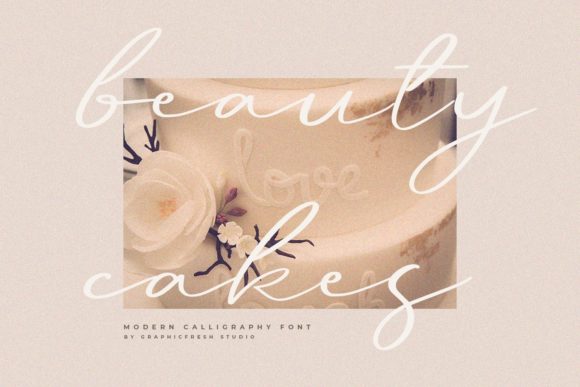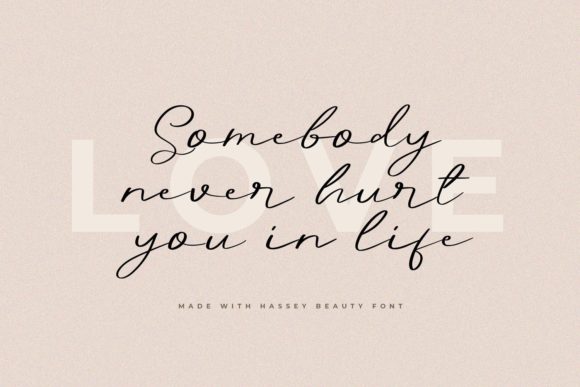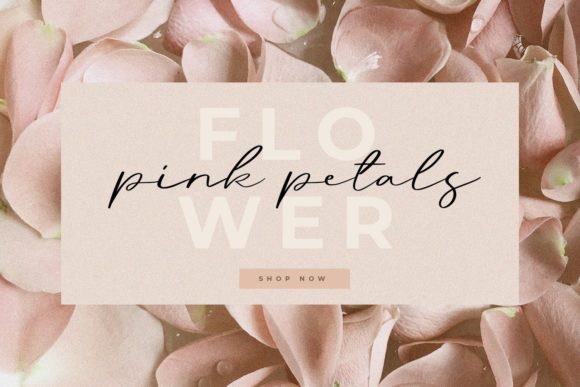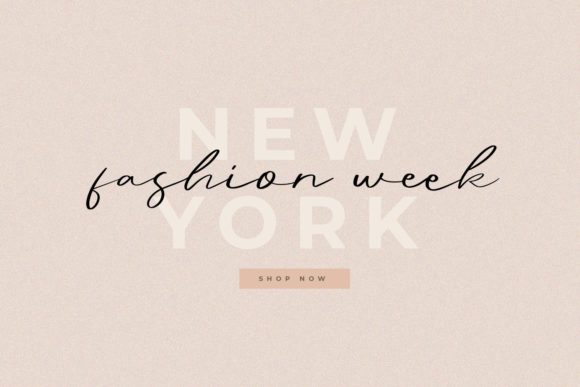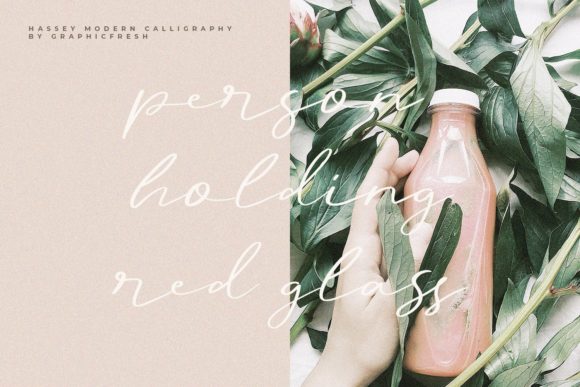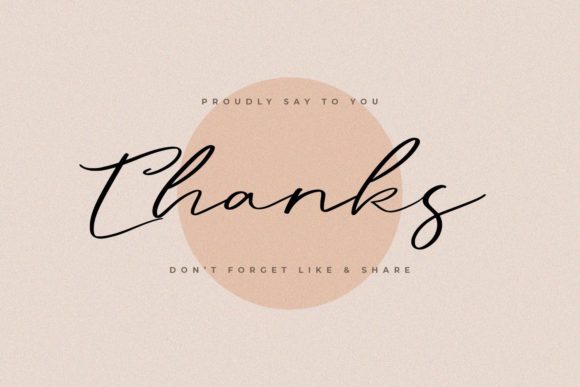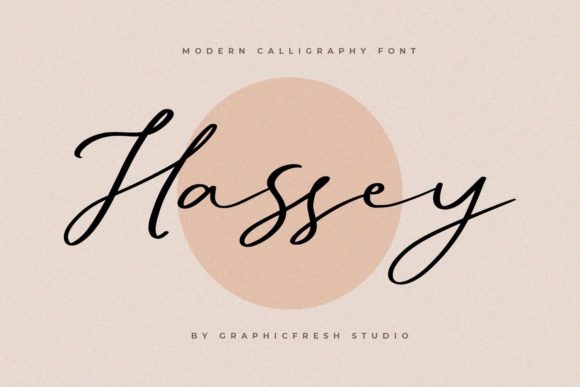
Hassey Font: The Epitome of Modern Elegance in Typography
In the realm of typography, fonts play a pivotal role in conveying messages, evoking emotions, and adding aesthetic appeal to designs. Among the myriad of fonts available, Hassey stands out as a beacon of modern elegance and sophistication. Dubbed as a modern and elegant script font, Hassey has captured the hearts of designers and crafters worldwide with its sweet look and feel. In this article, we’ll delve into the world of Hassey font, exploring its features, applications, and the reasons behind its growing popularity.
Introduction to Hassey Font
Hassey is a contemporary script font that exudes elegance and refinement. Its design is characterized by fluid strokes, harmonious curves, and a touch of sophistication, making it an ideal choice for projects that demand a high level of aesthetic appeal. Whether you’re working on a branding project, crafting a wedding invitation, or designing a website, Hassey promises to add a dash of modern elegance to your creations.
Key Features of Hassey Font
So, what makes Hassey a standout in the world of typography? Here are some of its key features:
- Modern and Elegant Design: Hassey’s design is sleek and contemporary, making it perfect for projects that require a modern touch.
- Sweet Look & Feel: The font’s sweet and charming appearance makes it an excellent choice for designs that aim to evoke emotions and create a personal connection with the audience.
- Versatility: Hassey is incredibly versatile, suitable for a wide range of applications, from digital designs to print materials.
- Easy to Read: Despite its elegant and cursive nature, Hassey maintains excellent readability, ensuring that your message is conveyed clearly and effectively.
Applications of Hassey Font
The versatility of Hassey font makes it suitable for various design projects. Here are some popular applications:
- Branding and Logo Design: Hassey’s modern and elegant appearance makes it an excellent choice for branding and logo design, helping businesses establish a sophisticated and contemporary identity.
- Wedding and Event Invitations: The font’s sweet and charming look makes it perfect for wedding invitations, event posters, and other ceremonial designs.
- Web Design: Hassey can add a touch of elegance to website designs, making it ideal for blogs, portfolios, and e-commerce sites that aim to convey a sense of sophistication.
- Print Materials: From brochures and flyers to business cards and posters, Hassey can elevate the aesthetic appeal of various print materials.
Why Choose Hassey Font?
With numerous fonts available, why should designers and crafters choose Hassey? Here are some compelling reasons:
- Unique and Distinctive: Hassey’s unique design sets it apart from more traditional fonts, allowing designers to create distinctive and memorable designs.
- Emotional Connection: The font’s sweet and elegant appearance can help create an emotional connection with the audience, making designs more impactful and engaging.
- Time-Saving: Hassey’s versatility and readability save designers time, as it can be used across various projects and applications without compromising on quality or aesthetics.
| Font Name | Hassey Font |
| Author | Graphicfresh |
Hassey font is a modern and elegant script font that has won the hearts of designers and crafters with its sweet look and feel. Its versatility, readability, and unique design make it an excellent choice for a wide range of design projects. Whether you’re aiming to create a sophisticated brand identity, a charming wedding invitation, or an elegant website design, Hassey promises to deliver. Explore the world of Hassey font and discover how it can elevate your designs to new heights of elegance and sophistication.
Provided by Graphicfresh, Hassey font is set to become a staple in the world of typography, offering designers and crafters a tool to create stunning and memorable designs. So, fall in love with Hassey’s sweet look and feel, and let it be the perfect addition to your design arsenal.